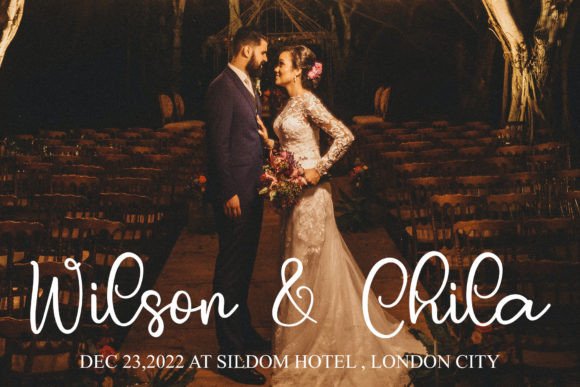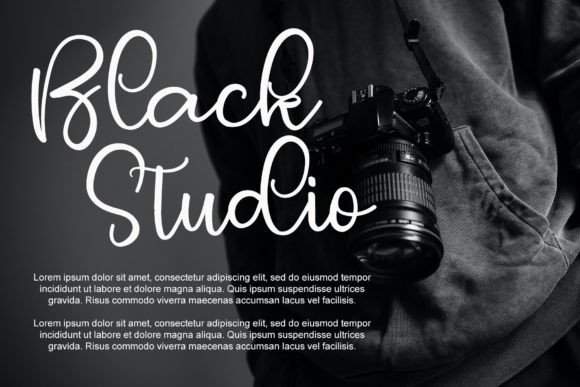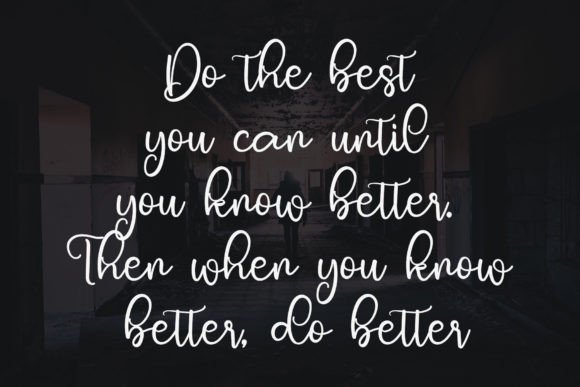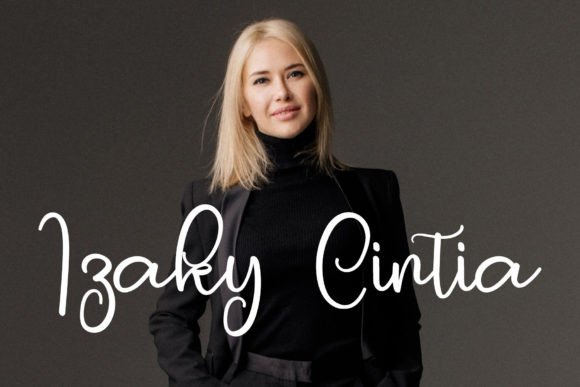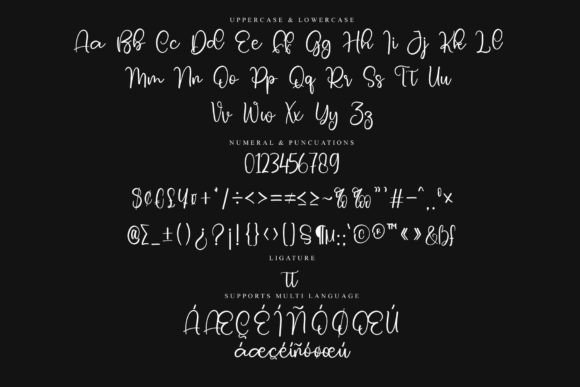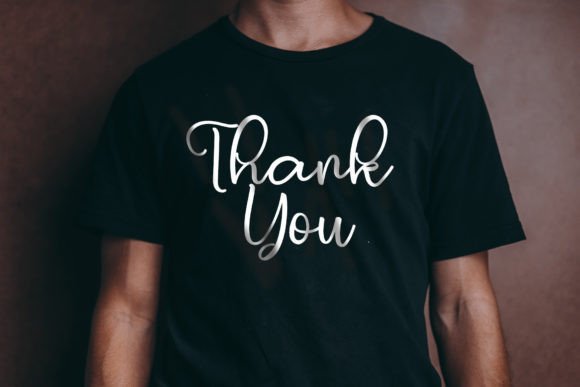
Introducing Cherry Blossom Font: Elevate Your Designs with Elegance
Are you a designer, crafty DIY enthusiast, or social media influencer looking for a font that adds a touch of sophistication to your creative projects? Look no further than the Cherry Blossom Font, a beautiful, handwritten script that can transform your designs into stunning works of art. In this article, we’ll dive into the world of Cherry Blossom Font, exploring its features, benefits, and uses, as well as provide tips on how to make the most of this magical font.
What is Cherry Blossom Font?
Cherry Blossom Font is a carefully crafted, handwritten script designed to bring a touch of elegance to your designs. With its delicate, cursive strokes and whimsical flair, this font is perfect for adding a personal touch to your creative projects. Whether you’re working on a DIY craft, creating social media content for Instagram, or designing a logo for your business, Cherry Blossom Font is the perfect choice.
Key Features of Cherry Blossom Font
- Handwritten script: Cherry Blossom Font is a genuine, handwritten script that exudes warmth and personality.
- Elegant and sophisticated: With its flowing strokes and delicate connections, this font adds a touch of sophistication to any design.
- Versatile: Use Cherry Blossom Font for a wide range of projects, from Instagram graphics and DIY crafts to logos, branding, and more.
- Easy to read: Despite its elegant, cursive nature, Cherry Blossom Font is surprisingly easy to read, making it perfect for body text and captions.
Benefits of Using Cherry Blossom Font
So, why choose Cherry Blossom Font for your designs? Here are just a few benefits of using this beautiful script:
- Adds a personal touch: With its handmade, cursive strokes, Cherry Blossom Font brings a personal, human touch to your designs.
- Elevates your brand: Use Cherry Blossom Font to create a cohesive, sophisticated brand identity that sets you apart from the competition.
- Perfect for creative projects: Whether you’re working on a DIY craft or creating social media content, Cherry Blossom Font is the perfect choice for adding a touch of elegance and whimsy.
Using Cherry Blossom Font for Your Designs
Ready to get started with Cherry Blossom Font? Here are a few tips for incorporating this beautiful script into your designs:
- Pair with bold fonts: Combine Cherry Blossom Font with bold, sans-serif fonts for a striking contrast that adds visual interest.
- Use for headings and titles: Cherry Blossom Font is perfect for headings, titles, and captions – use it to add a touch of elegance to your designs.
- Experiment with colors: Try pairing Cherry Blossom Font with pastel colors, metallic accents, or bold brights to create a unique, eye-catching look.
DIY Projects with Cherry Blossom Font
Cherry Blossom Font is perfect for a wide range of DIY projects, from paper crafting and scrapbooking to home decor and jewelry making. Here are a few ideas to get you started:
- Create handmade cards: Use Cherry Blossom Font to add a personal touch to your handmade cards and gift tags.
- Make beautiful journal pages: Add Cherry Blossom Font to your journal pages for a touch of elegance and whimsy.
- Design custom home decor: Use Cherry Blossom Font to create custom wall art, signs, and other home decor items.